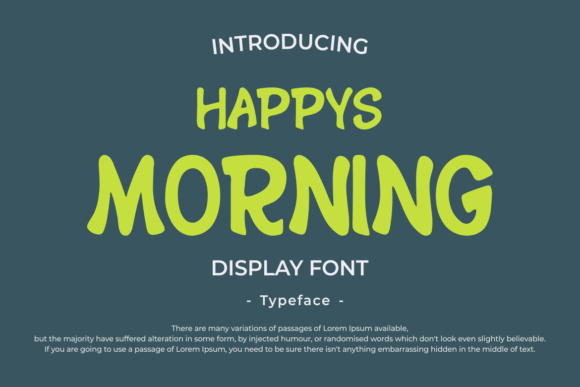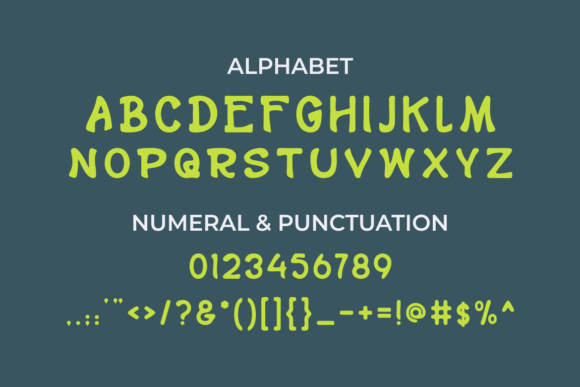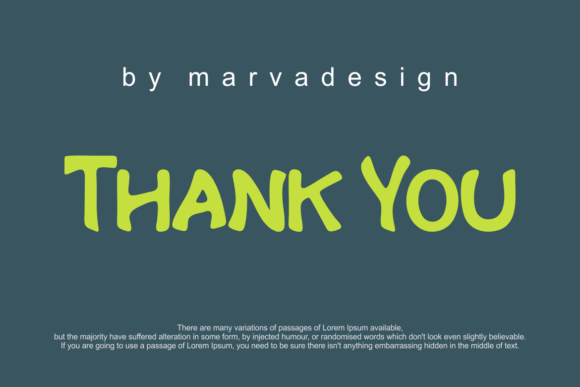
Start Your Day Off Right with Happys Morning Font
Who hasn’t had those moments where you’re brainstorming a new project, pouring over design inspiration, and suddenly, it hits you – that perfect idea that makes your heart skip a beat? The rush of creativity is exhilarating, and it’s exactly what drives us designers to keep pushing the boundaries of what’s possible. For those of us who’ve experienced that thrill, we know how crucial the right tools can be in bringing our visions to life.
Enter the Happys Morning Font, a delightful display font that’s sure to put a smile on your face and elevate your designs to new heights. This quirky, fun font is designed to be the perfect complement to any project, from social media graphics to advertising campaigns. With its unique charm, Happys Morning Font has the potential to make your creations stand out from the crowd and leave a lasting impression.
Whether you’re a seasoned designer or just starting out, the Happys Morning Font is an invaluable addition to your font library. Its versatility and playfulness make it an ideal choice for designers looking to add a touch of personality to their work.
Happys Morning Font Key Features
- Font Style: A playful, handwritten font with a warm and friendly feel, perfect for adding a touch of personality to designs.
- Character Set: The font includes a wide range of characters, including uppercase and lowercase letters, numbers, punctuation marks, and special characters.
- Size: Happys Morning Font is available in a single weight, making it easy to use in a variety of design contexts.
- Unique Characteristics: Happys Morning Font features a unique, hand-drawn feel with subtle imperfections that give it a personal touch.
Happys Morning Font Review
I recently had the chance to work with the Happys Morning Font and overall, I’m pleased with its performance. ✨ The font’s playful and energetic vibe is perfect for any project that needs a cheerful touch. I especially appreciate the variety of weights and styles available, which gives users a lot of flexibility when it comes to customization. ✨ The font’s legibility is also noteworthy, making it suitable for both body text and headlines.
However, I did encounter some limitations while working with Happys Morning Font. ⚠️ One of the main issues is its relatively small character set, which may limit its use for certain projects. Additionally, I found the font’s kerning to be somewhat inconsistent at times, which can be distracting in certain contexts. ⚠️
Despite these limitations, I still think Happys Morning Font is a great addition to any designer’s toolkit. Its unique personality and versatility make it a great choice for projects that require a bit of whimsy and flair. Overall, I’d recommend Happys Morning Font to anyone looking for a fun and engaging font to add some excitement to their designs.
- Playful and energetic vibe
- Variety of weights and styles
- Good legibility
- Small character set
- Inconsistent kerning
The Happys Morning Font is ideal for:
– Social media graphics and ads
– Blog posts and articles
– Print materials like brochures and flyers
– Digital invitations and event promotions
– Branding and logo design
Tips for getting the most out of Happys Morning Font:
– Experiment with different font sizes and colors to create visual interest.